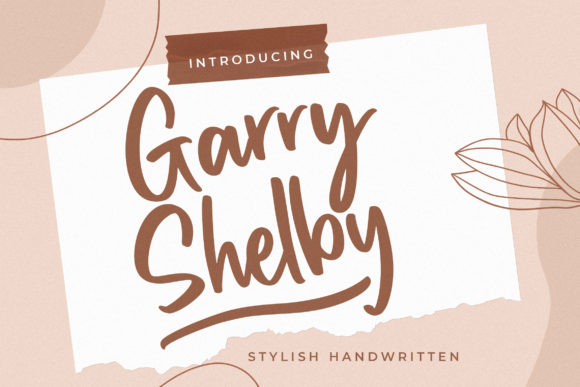
Introducing Garry Shelby Font - Your Ticket to Unforgettable Designs
Welcome to the realm of Garry Shelby Font, a remarkable creation by CreatypeStudio, where elegance and charm intertwine to produce a visual masterpiece. This script font exudes a casual yet sophisticated aura, promising to elevate your projects to new heights of creativity.
With Garry Shelby Font, you'll embark on a journey of limitless possibilities. Its enchanting handwritten style lends an air of authenticity to your designs, making them stand out from the crowd. Whether you're crafting a captivating logo, designing a heartfelt wedding invitation, or creating engaging social media content, Garry Shelby Font is your perfect companion.
Imagine transforming your branding projects into works of art, leaving a lasting impression on your audience. Garry Shelby Font's versatility extends to product packaging, product designs, labels, and photography, adding a touch of sophistication to every element. The possibilities are truly endless.
But the magic doesn't stop there. Garry Shelby Font's PUA encoding unlocks a world of glyphs and swashes, granting you effortless access to a treasure trove of creative options. Unleash your imagination and let your designs shine with the beauty of Garry Shelby Font.
So, dive into the world of Garry Shelby Font and let your creativity soar. Experience the joy of effortless design and watch your projects come to life with a charm that captivates and inspires. Make your mark on the world with Garry Shelby Font – the ultimate tool for creating stunning visual masterpieces.